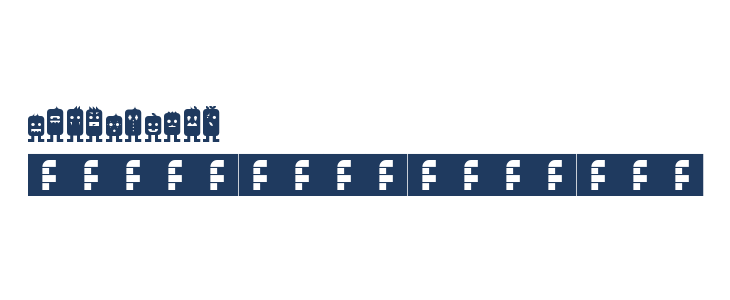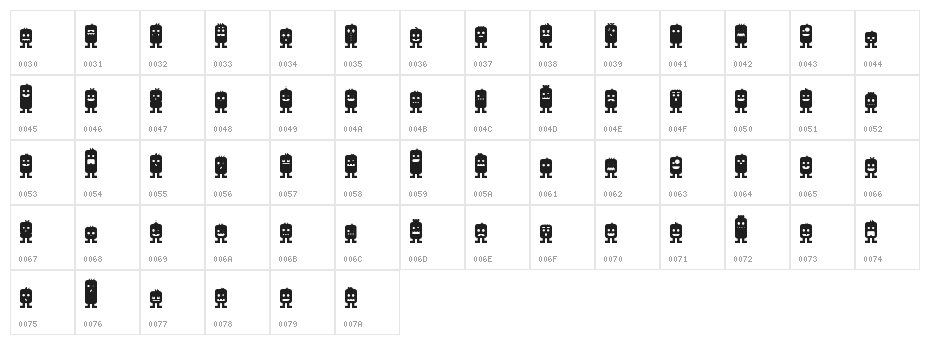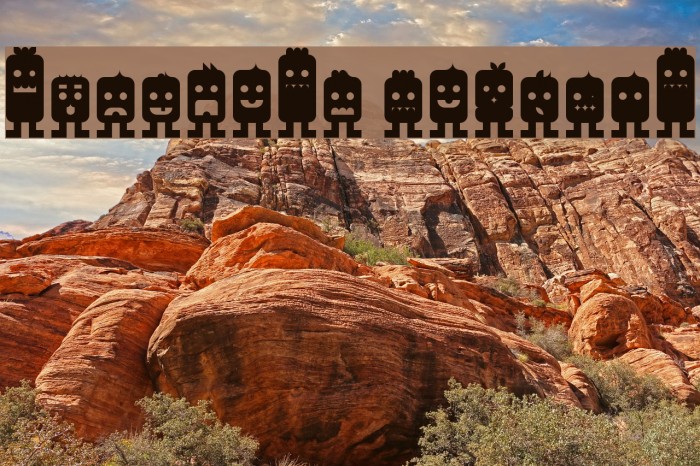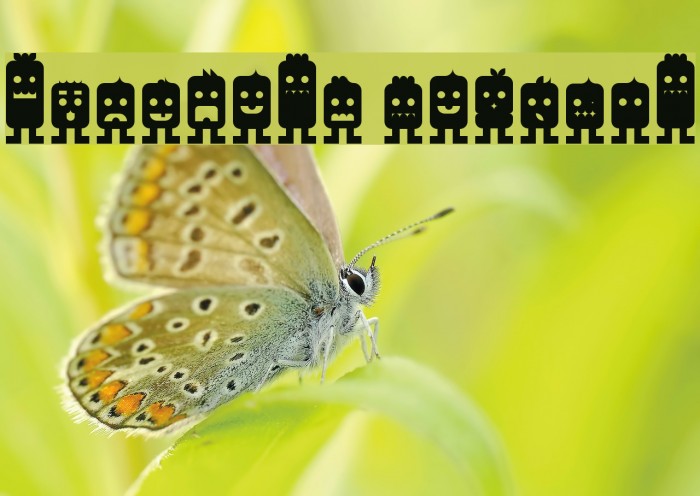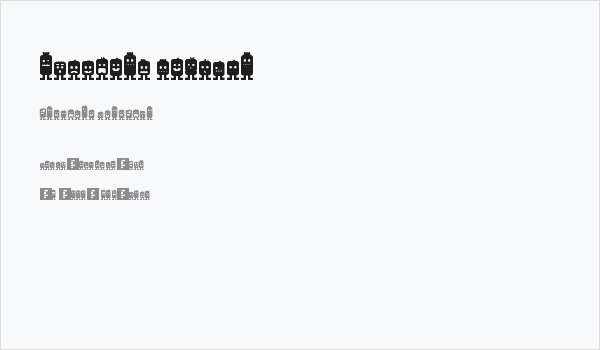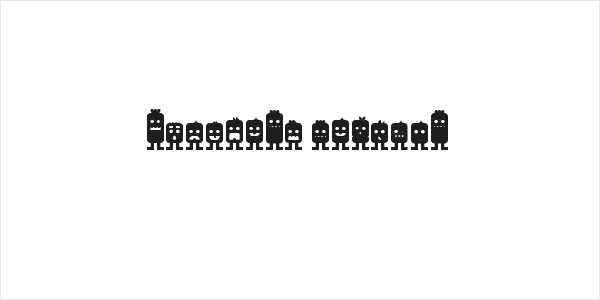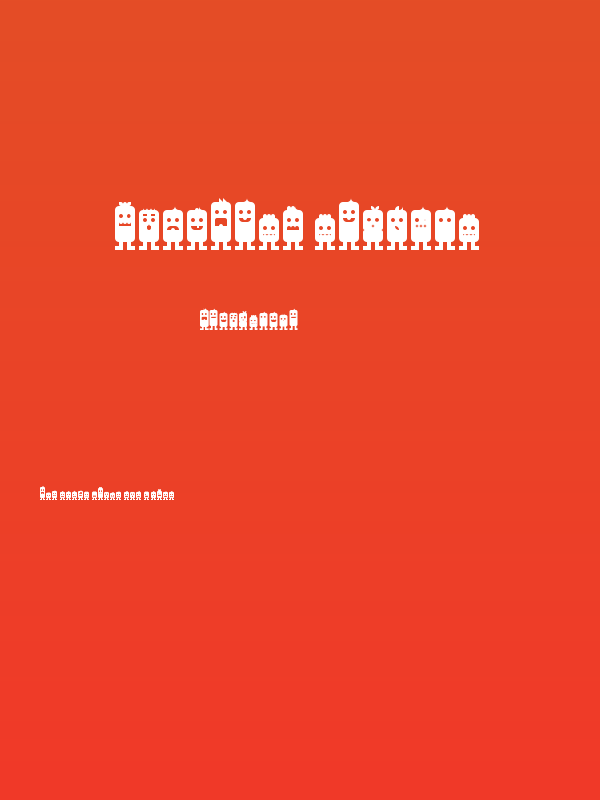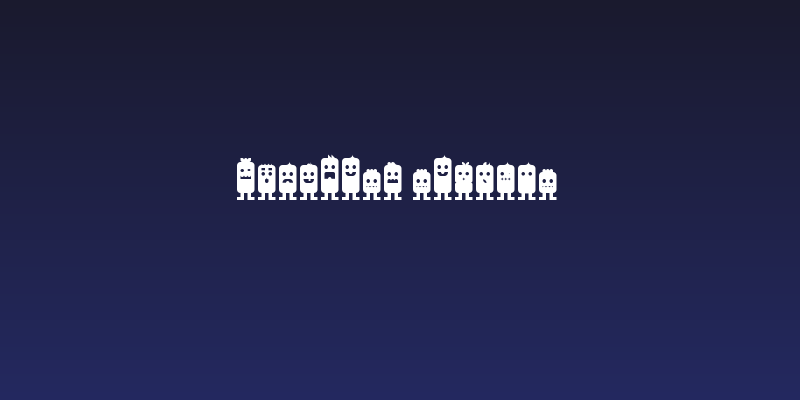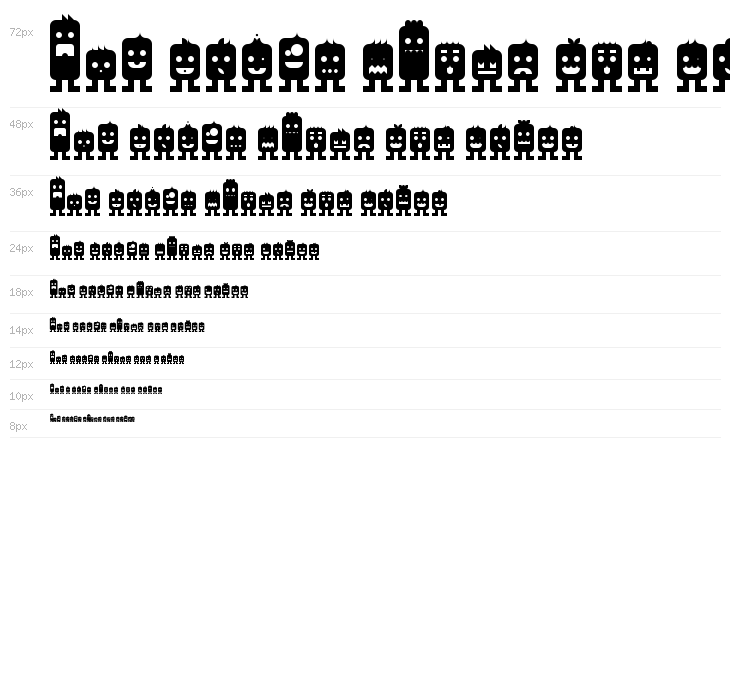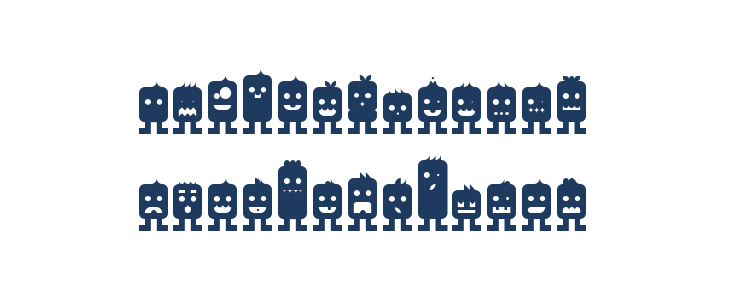
Monsterz Regular Font
Monsterz Regular Description
This font features a playful and whimsical design, with each character represented as a unique monster figure. The characters are bold and blocky, with distinct facial expressions and quirky details like horns, teeth, and various hairstyles. The overall appearance is cartoonish and fun, making it ideal for projects that require a lighthearted and imaginative touch. The characters are evenly spaced, ensuring readability despite their unconventional shapes. This font is perfect for children's materials, creative posters, or any design that aims to capture a sense of fun and creativity.
Use CaseHeadlines, Logos, Creative projects
Proposed ProjectsChildren's books, playful posters, creative branding, party invitations.